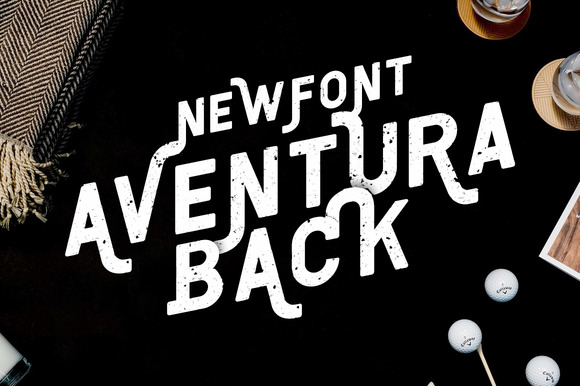
A First Impression of Aventura
Aventura is a vintage sans serif font that comes in two variations: Aventura Normal and Aventura Rough. The Normal version has a clean, crisp feel, while the Rough version has a beautifully distressed texture that gives it a worn, outdoorsy look. I was immediately drawn to the font’s unique character and versatility.
An Honest Review of Aventura
- ✨ Unique texture: The Rough version of Aventura has a wonderful texture that adds depth and character to any design.
- ✅ Highly legible: Both versions of Aventura are incredibly legible, even at small sizes.
- 💡 Versatile: Aventura works beautifully for both digital and print projects, from logos and branding to posters and signage.
- 👍 Easy to pair: The Normal and Rough versions of Aventura are very compatible and can be paired together for a stunning effect.
While Aventura is an excellent font, there are a few things to keep in mind:
- ⚠️ No italic version: Aventura does not have an italic version, which may be a limitation for some designers.
The Backstory of Aventura
Aventura was designed with nature in mind. The font’s creator wanted to capture the essence of the great outdoors, with all its rugged beauty and simplicity. The result is a font that feels both vintage and modern, with a unique texture that’s perfect for designs that need a little extra character.
Q: What is Aventura font?
A: Aventura is a vintage sans serif font that comes in two variations: Aventura Normal and Aventura Rough.
Q: What is Aventura font used for?
A: Aventura is a versatile font that can be used for a wide range of design projects, from logos and branding to posters and signage.